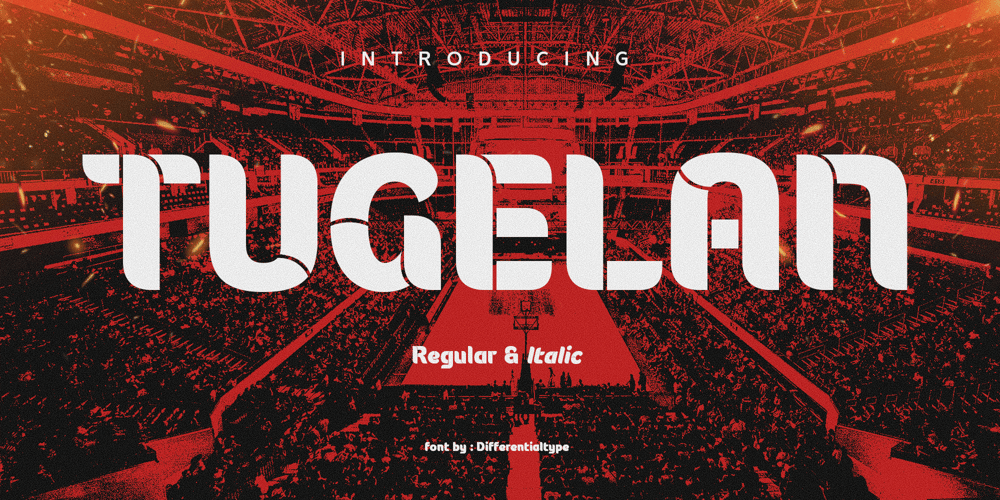
Tugelan
Tugelan font
Tugelan Font Family was designed by Sidik Sidik and published by Differentialtype. Tugelan contains 2 styles and family package options. Discover Tugelan, a strikingly innovative and futuristic font, characterized by its distinct cutout style on each glyph. Perfectly suited to projects revolving around themes of digital tech, sports, robotics, artificial intelligence, and science fiction. Tugelan effortlessly infuses a sense of sophistication and avant-garde elegance whether used in digital interfaces, branding enterprises, or promotional drives. Its unique essence makes it a standout choice for those who embrace futuristic themes and digital innovation, painting every design with a stroke of the future.